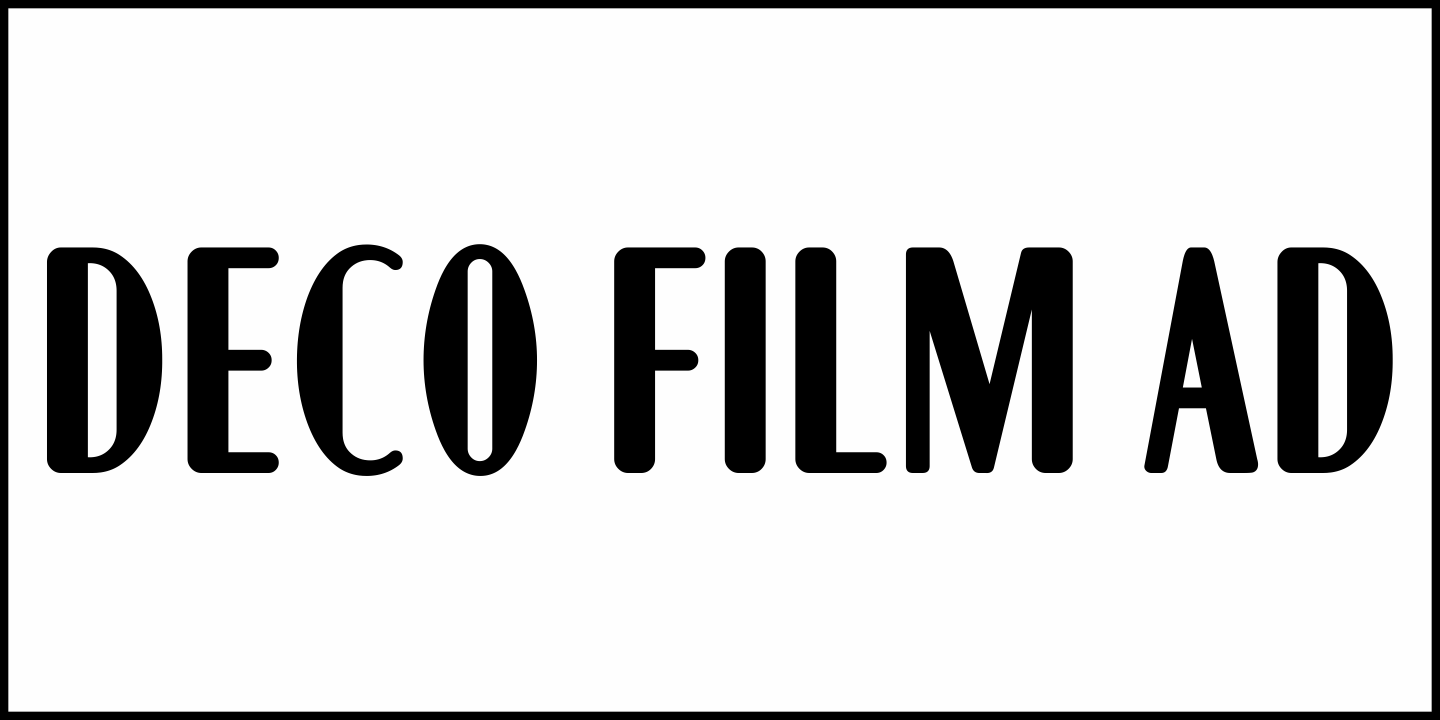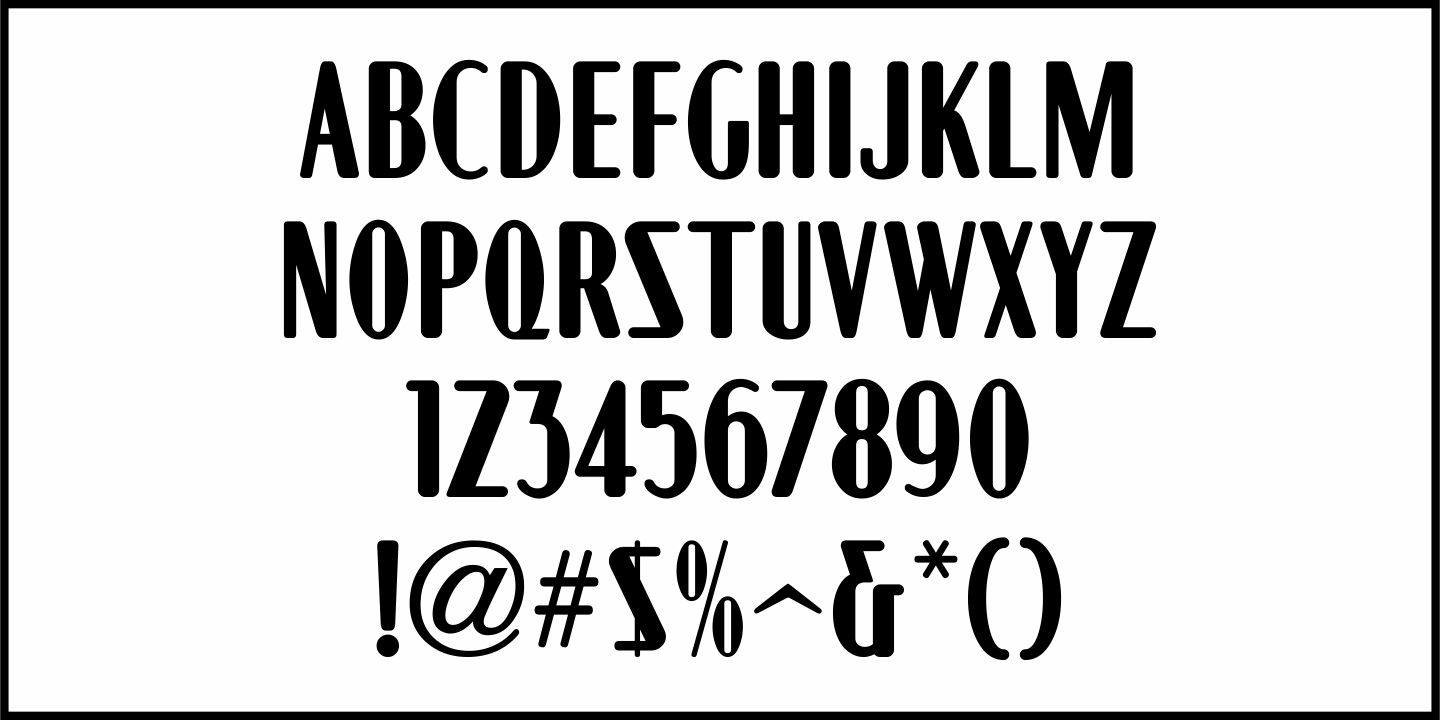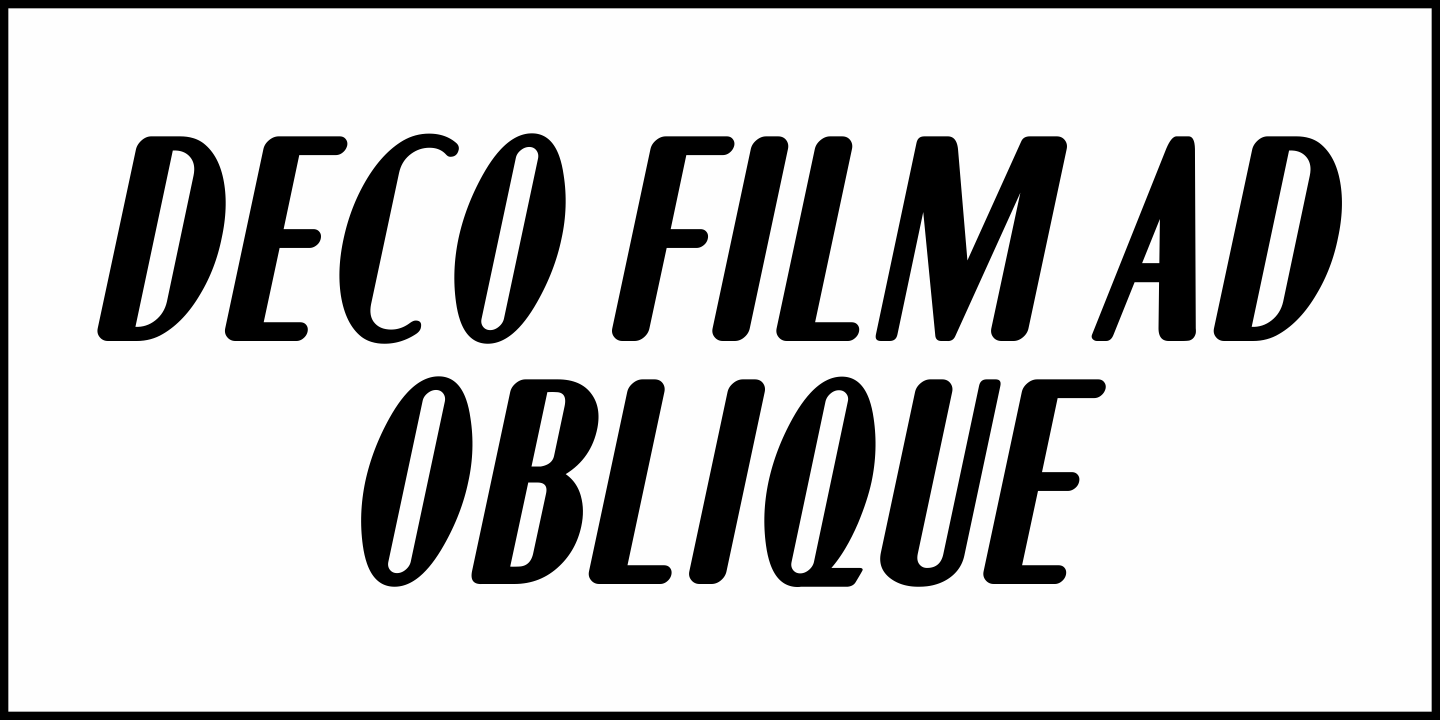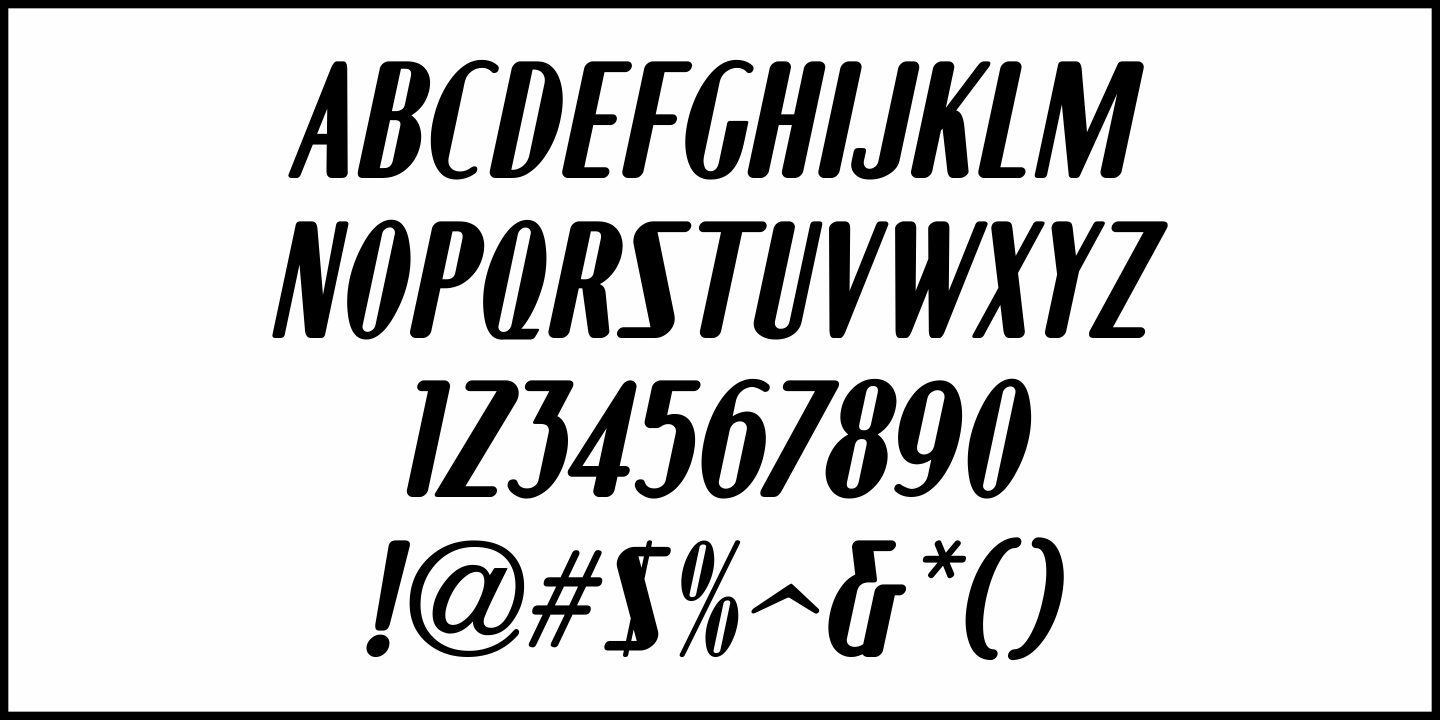
Deco Film Ad
A 'thick and thin” Art Deco sans lettering design was found within the pages of the May, 1936 issue of Modern Screen magazine. This condensed typeface has rounded terminals, similar to that made by a round nib lettering pen.
This is now available as Deco Film Ad JNL in both regular and oblique versions.
Deco Film Ad JNL Regular by Jeff Levine Fonts